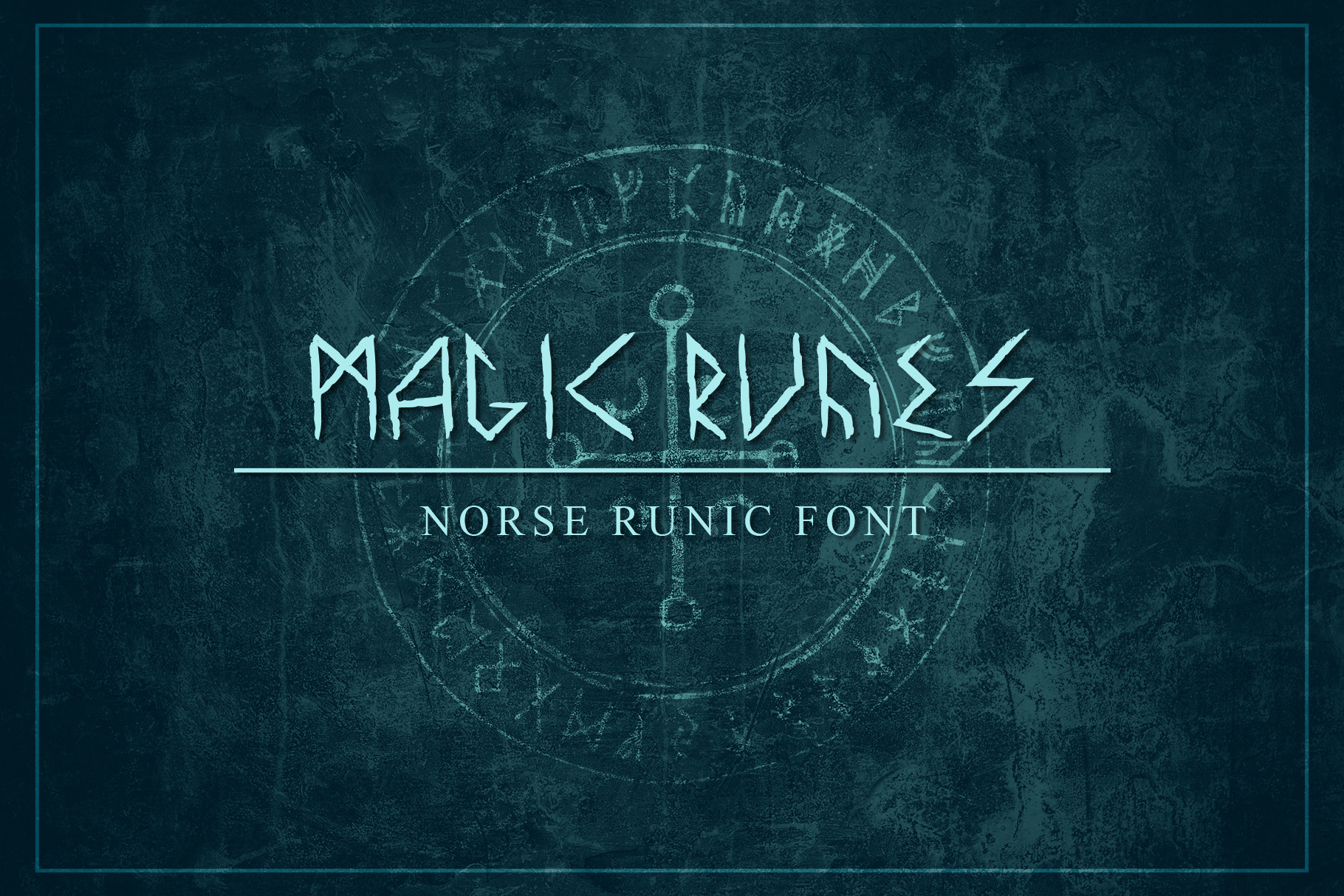
Magic Runes - Norse Runic Font
Magic Runes Font
The "Magic Runes" font is inspired by the ancient runic alphabet used by the Nordic peoples. With its angular lines and mystical aesthetic, it evokes the power and mystery of ancient Viking sagas. Perfect for projects related to fantasy, mythology or historical design.